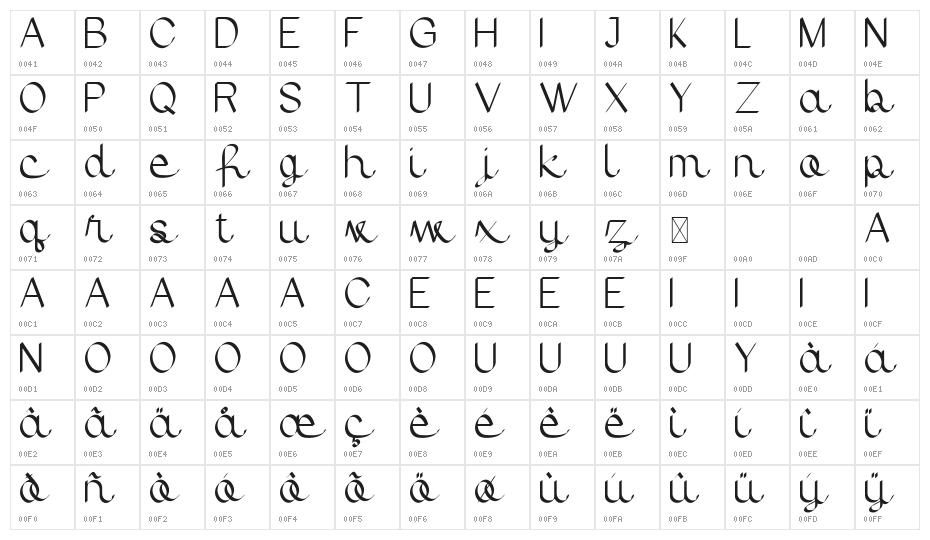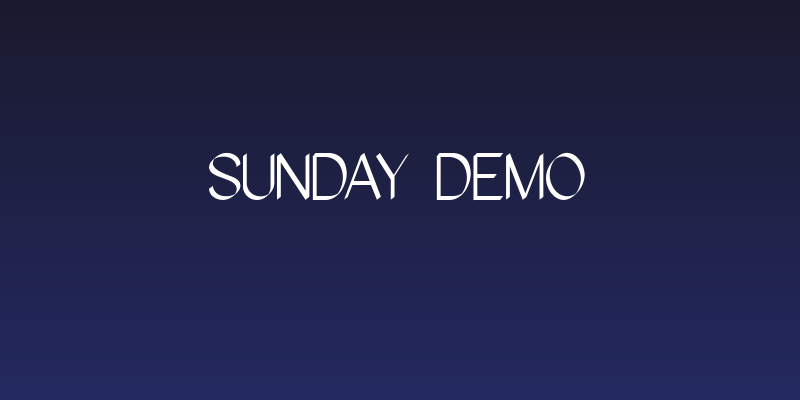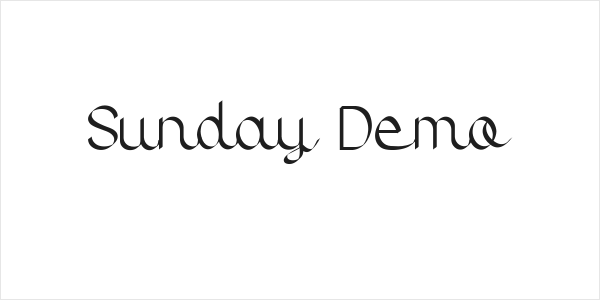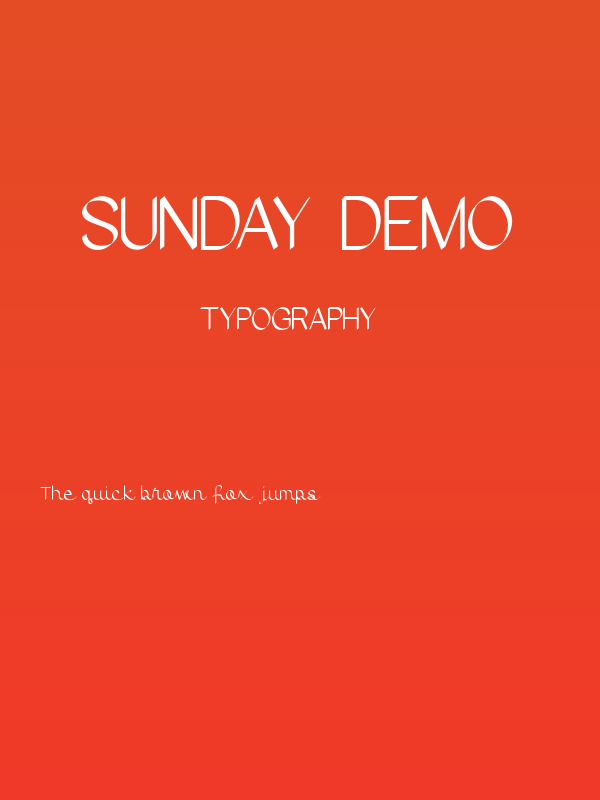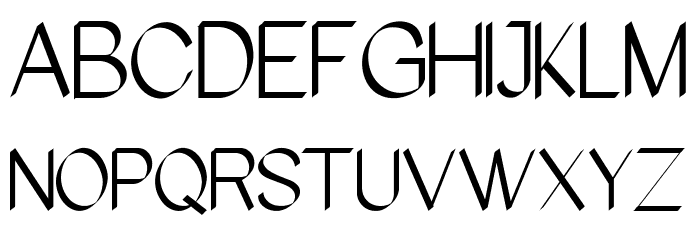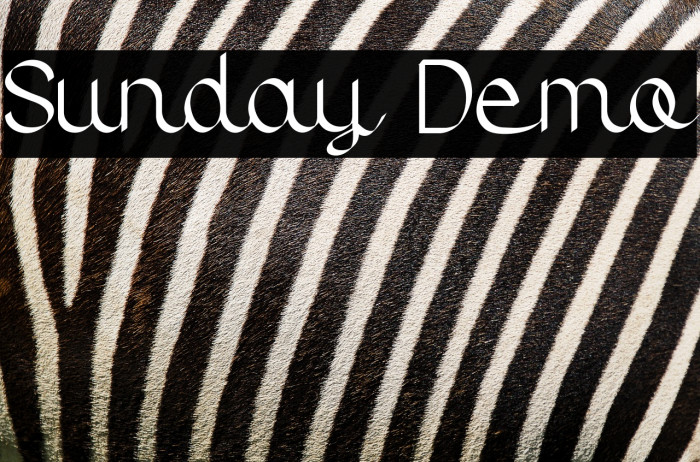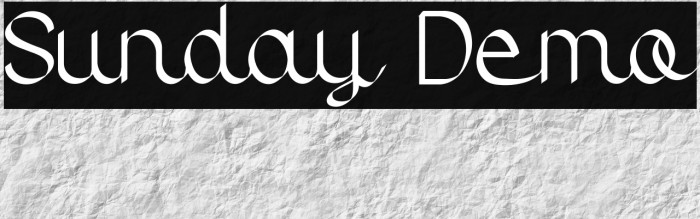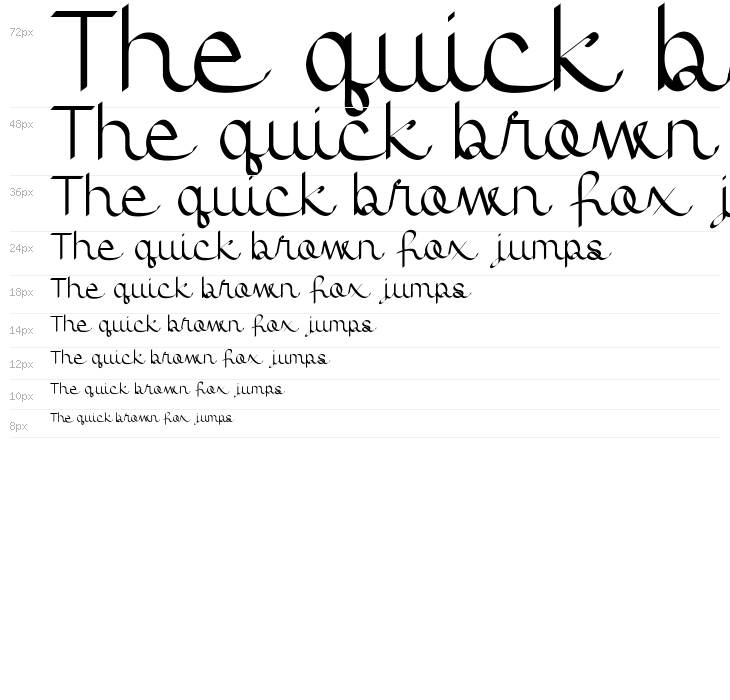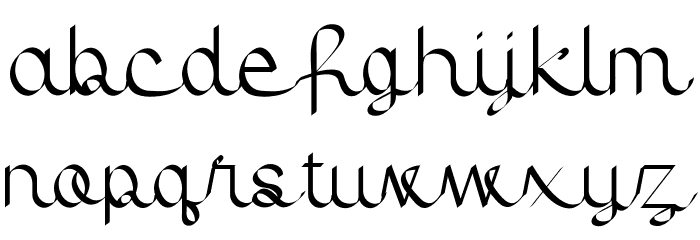
Sunday Demo Font
Sunday Demo Description
This font features a unique blend of modern and classic elements, characterized by its elegant and flowing script style. The uppercase letters are bold and structured, providing a strong presence, while the lowercase letters exhibit a more cursive and fluid design, adding a touch of sophistication. The font maintains a consistent stroke width, offering a balanced and harmonious appearance. Its distinct style is suitable for creative and artistic projects, where a touch of elegance and flair is desired. The font's versatility makes it ideal for both digital and print media, ensuring readability and aesthetic appeal across various platforms.
| Proposed Projects | Ideal for wedding invitations, branding, logo design, and editorial layouts. |